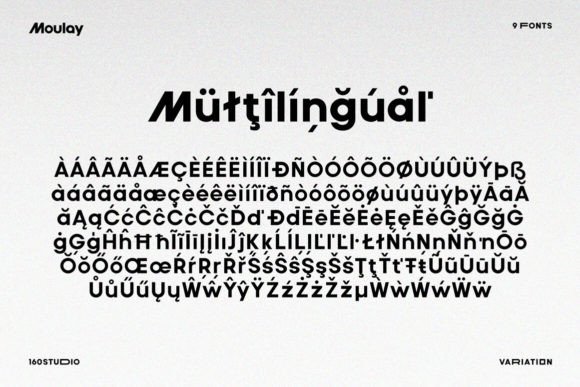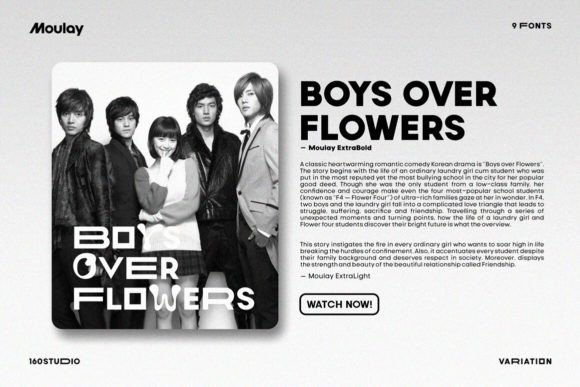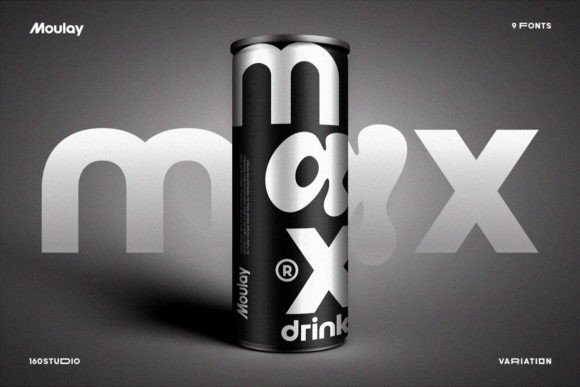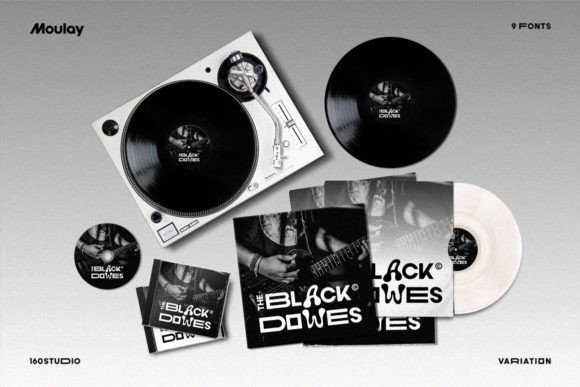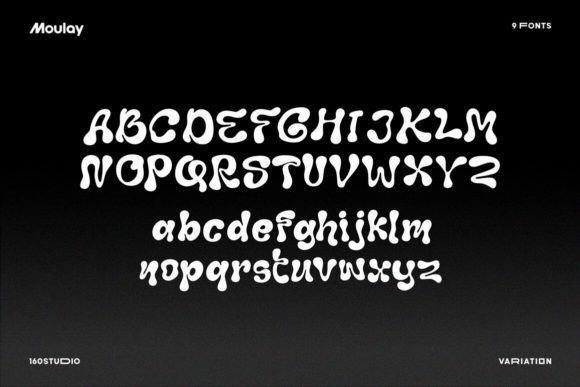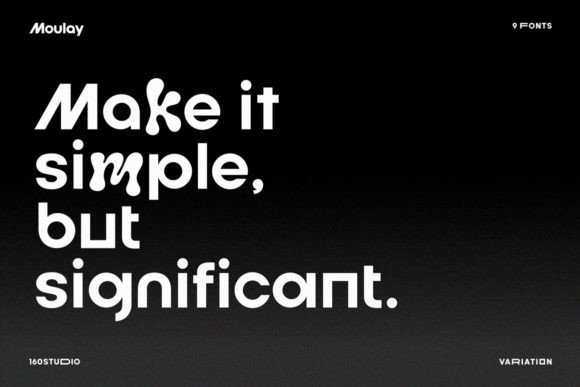
Discovering the Versatility of Moulay Font
Remember the moment when you finally find the perfect font for your creative project? The one that elevates your design from ordinary to extraordinary? For designers, that ‘aha’ moment is a treasure, and it’s what makes the search for the ideal font so exhilarating. Whether you’re working on a logo, a magazine, or a book, the right font can make all the difference in conveying your message and captivating your audience.
One such gem is the Moulay Font, a sans serif font family that has been gaining popularity among designers for its unique blend of style and versatility. With multiple stylistic sets and variable weights, Moulay Font offers the perfect balance of playfulness and professionalism, making it an ideal choice for a wide range of creative projects.
Moulay Font
- High-quality, elegant font suitable for creative projects and design resources.
- Includes a range of characters, including Latin, Cyrillic, and Greek alphabets, making it a versatile design resource.
- Designed to work well at high resolutions (up to 300 DPI), ensuring crisp and clear text display.
- Perfect for use in various creative projects, including graphic design, typography, and digital art.
Honest Review: Moulay Font
I recently had the chance to work with the Moulay Font for a creative project, and I must say it was a great experience. The high quality of this font is immediately noticeable, with clean lines and a sophisticated look that’s perfect for a variety of designs.
What works well with the Moulay Font is its versatility. It can be used for both modern and traditional designs, and the font’s elegant feel makes it a great choice for creative projects that require a touch of sophistication.
Here are some of the key features I like about the Moulay Font:
- High-quality design with clean lines and a sophisticated look
- Perfect for modern and traditional designs
However, I did notice a few limitations with the Moulay Font:
- ⚠️ Limited font sizes and styles available
- ⚠️ May not be suitable for very small text sizes
Overall, I’m really impressed with the Moulay Font. It’s a high-quality design resource that’s perfect for creative projects, and the free download option makes it a great choice for designers of all levels.
Moulay Font
Moulay Font is a high-quality, free download that can elevate your creative project. With its unique design, this font is perfect for adding a touch of elegance to your work.
To get the most out of Moulay Font, consider the following tips:
- Use a transparent background to make your text elements stand out.
- Experiment with different font sizes and colors to find the perfect combination.
- Use Moulay Font in conjunction with other design elements to create a cohesive look.
Moulay Font is perfect for:
- Designing wedding invitations and stationery.
- Creating business cards and brochures.
- Designing social media graphics and ads.
Montserrat is a modern sans-serif font that is perfect for creative projects that require a clean and minimalist design. It features a high-quality design and a transparent background, making it ideal for use in logos, titles, and headings. When to use: for projects that require a modern and sleek design, or when you want to create a sense of simplicity and elegance. Compared to Moulay Font, Montserrat has a more contemporary feel, making it suitable for projects where you want to convey a sense of innovation and forward-thinking.